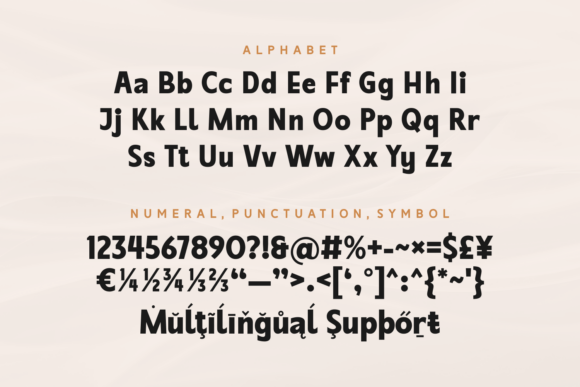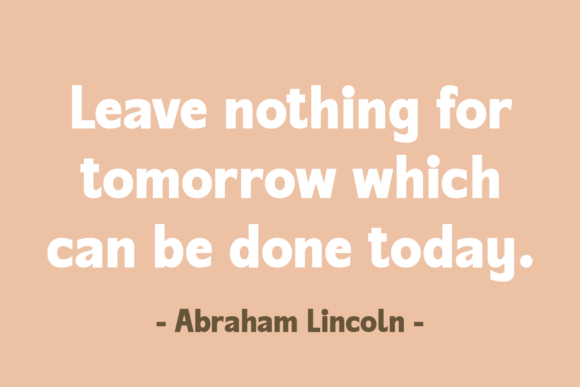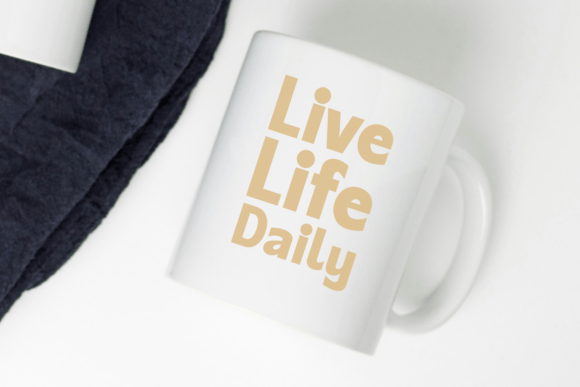
Bearben Font: The Ultimate Choice for Modern Designers
In the world of typography, fonts play a crucial role in conveying the message and aesthetic of a brand or design project. With countless options available, finding the perfect font that balances style, readability, and versatility can be a daunting task. However, if you’re looking for a modern sans-serif font that embodies sleekness, professionalism, and elegance, look no further than Bearben Font.
What is Bearben Font?
Bearben is a contemporary sans-serif font that masterfully blends clean lines with subtle curves, resulting in a sleek and professional appearance. Designed with the needs of modern designers in mind, Bearben offers a perfect balance of style, legibility, and adaptability, making it an ideal choice for a wide range of design applications.
Key Features of Bearben Font
- Clean Lines and Subtle Curves: Bearben’s design is characterized by its clean lines and subtle curves, which work together to create a harmonious and visually appealing aesthetic.
- High Readability: The font’s clear and concise letterforms ensure excellent readability, even at smaller font sizes, making it perfect for body text and editorial layouts.
- Versatility: Bearben’s neutral and adaptable design allows it to seamlessly integrate into various design contexts, from branding and web design to editorial and packaging projects.
- Modern and Minimalist: Bearben’s sleek and modern appearance makes it an excellent choice for contemporary design projects, while its subtle curves add a touch of warmth and sophistication.
Use Cases for Bearben Font
Bearben’s versatility and style make it suitable for a wide range of design applications, including:
- Branding: Establish a strong visual identity with Bearben’s clean and professional aesthetic, perfect for logos, business cards, and brand guidelines.
- Web Design: Enhance user experience with Bearben’s excellent readability and modern appearance, ideal for websites, blogs, and digital interfaces.
- Editorial Layouts: Add a touch of sophistication to your publications with Bearben’s elegant and refined design, suitable for magazines, newspapers, and books.
- Packaging: Make a lasting impression with Bearben’s sleek and modern appearance, perfect for product labels, packaging, and point-of-purchase displays.
Why Choose Bearben Font?
- Unique Aesthetic: Bearben’s distinctive blend of clean lines and subtle curves sets it apart from other sans-serif fonts, offering a fresh and modern alternative.
- Improved Readability: Bearben’s clear and concise letterforms ensure that your message is communicated effectively, even in smaller font sizes.
In conclusion, Bearben Font is a modern sans-serif font that offers a perfect blend of style, readability, and versatility. Its sleek and professional appearance makes it an excellent choice for a wide range of design applications, from branding and web design to editorial layouts and packaging. Whether you’re a designer, craftsperson, or simply someone looking for a reliable and stylish font, Bearben is an excellent addition to your typographic arsenal.